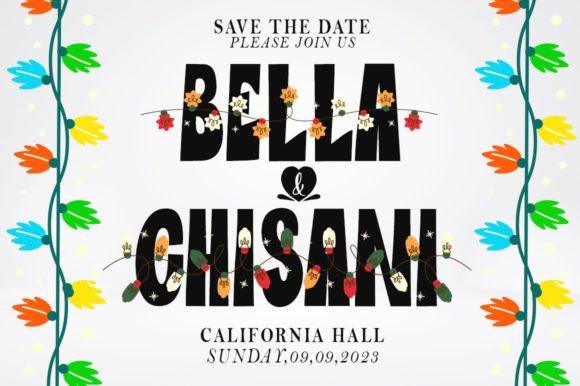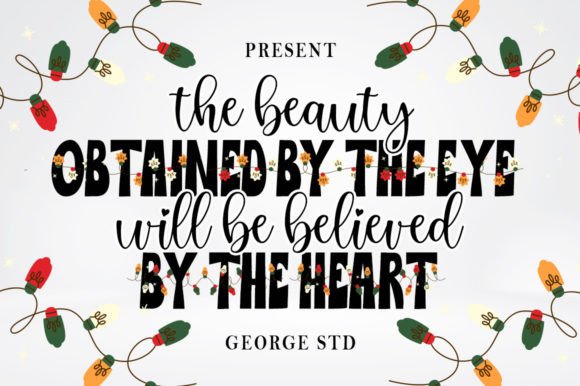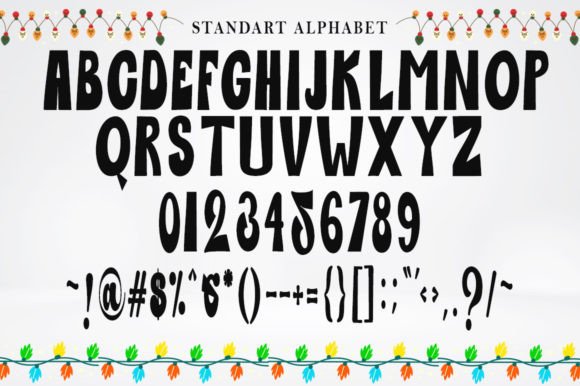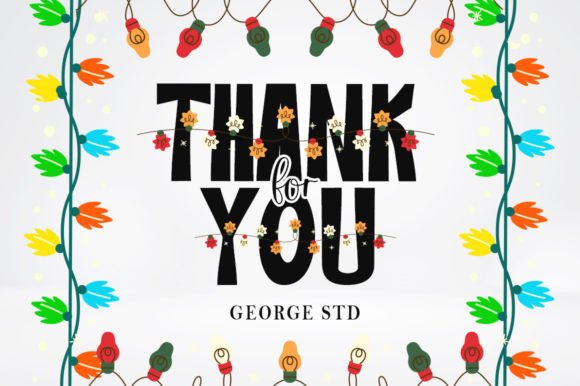
Handmade Lights Font
About Handmade Lights Font
Handmade Lights Font is a bold, all-caps typeface that stands out with character and energy. Designed to capture attention instantly, it combines handcrafted charm with modern boldness. With sharp edges, strong lines, and a creative personality, Handmade Lights Font is perfect for posters, logos, packaging, branding, merchandise, and editorial projects.
A Bold Typeface with Distinct Personality
Fonts often set the tone for a design, and Handmade Lights Font makes a statement. Its all-caps format emphasizes clarity, power, and consistency while the handcrafted style keeps it original. Moreover, its bold strokes provide excellent readability, making it equally effective for digital and print projects.
Perfect Typeface for Posters and Headlines
When you want to make your message stand out, Handmade Lights Font is an ideal choice. For example, it works beautifully on posters, banners, and headlines that require impact. Additionally, it enhances album covers, book titles, and social media graphics, giving your work a confident and expressive look.
A Strong Typeface for Branding and Packaging
Businesses and creatives can also rely on Handmade Lights Font for branding purposes. It looks striking on product packaging, boutique logos, and promotional materials. Furthermore, it adds personality to advertising campaigns, editorial layouts, and magazine covers. When paired with minimalist fonts, it creates a balanced and professional design identity.
Flexible Across Print and Digital Media
Another advantage of Handmade LightsFont is its adaptability across multiple platforms. In print, it brings strength to brochures, merchandise, and flyers. Digitally, it integrates smoothly into websites, e-commerce platforms, and social media content. Since it scales well from small labels to large billboards, it ensures consistency and readability everywhere.